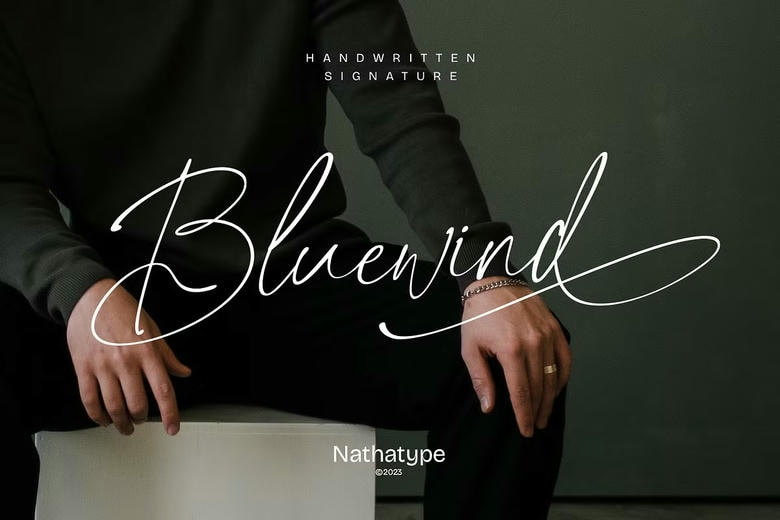
Bluewind Font
Bluewind is a handwritten script font that is aimed at mimicking the looks of a handwritten signature. Every single letter in this font is done by hand, giving it a soft, low contrast feel that could resemble an artist’s hand on paper as well. The curves on the letters and swashes make the font look like handwriting that has been done with much confidence and energy.
Bluewind Handwritten Script Font